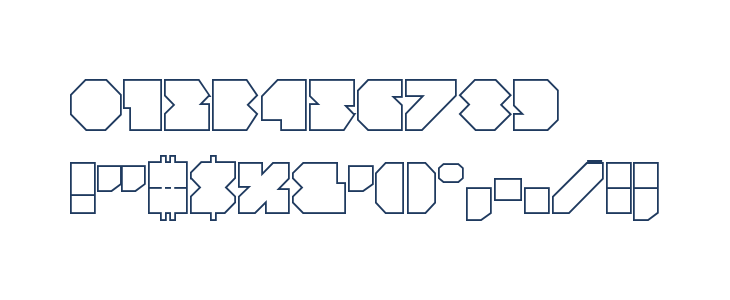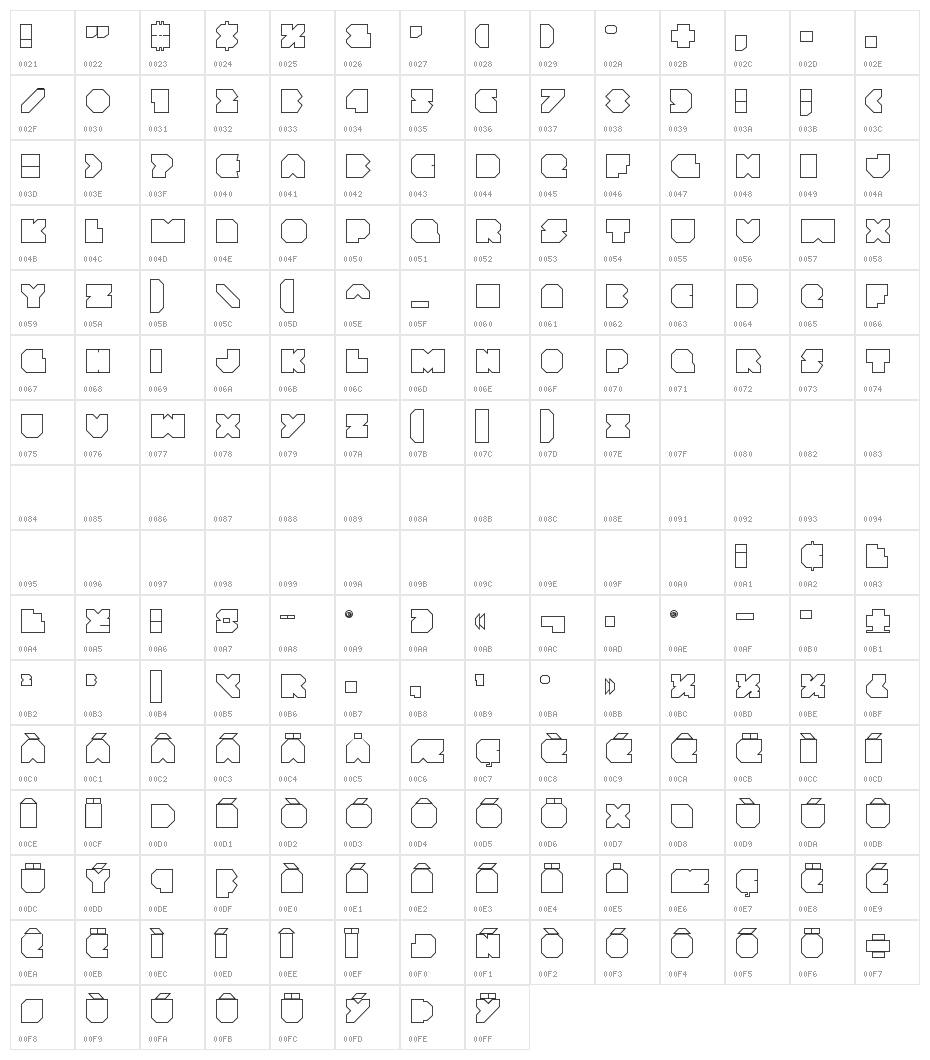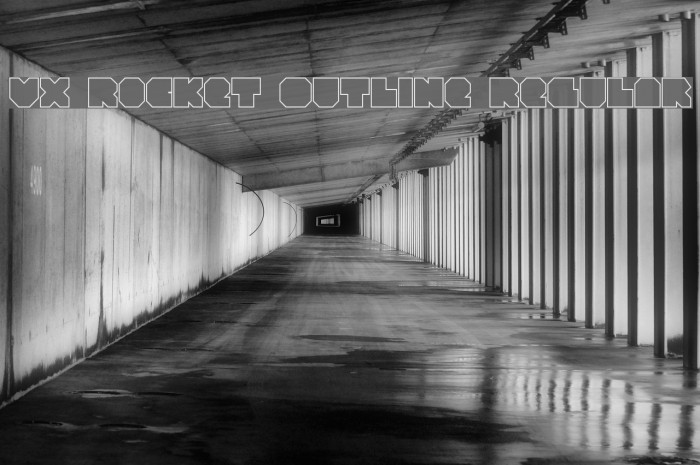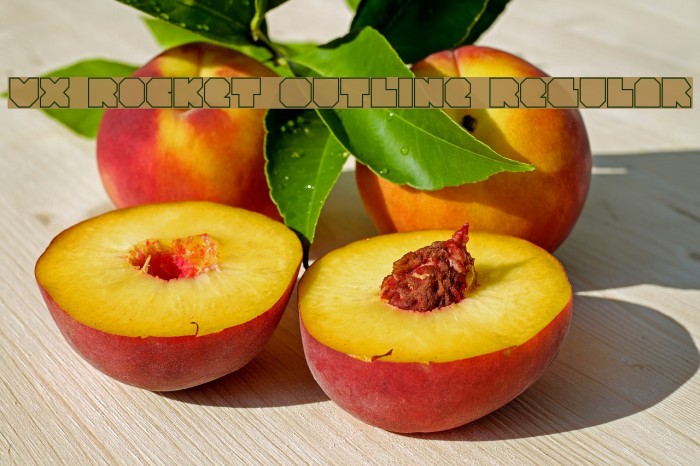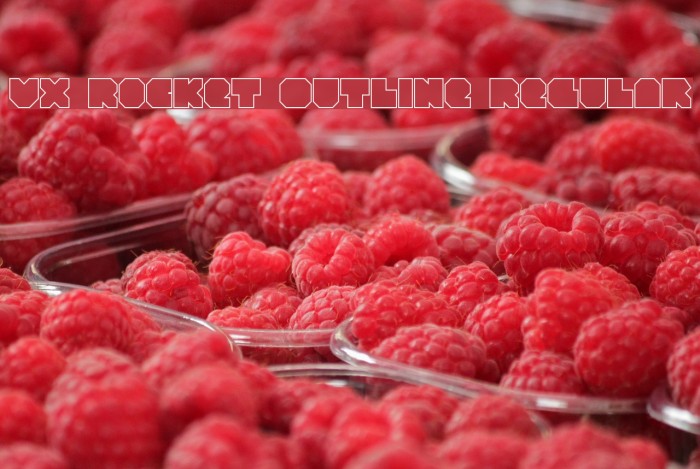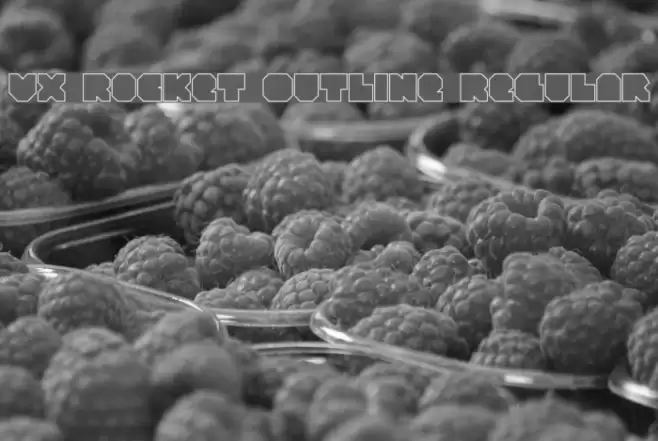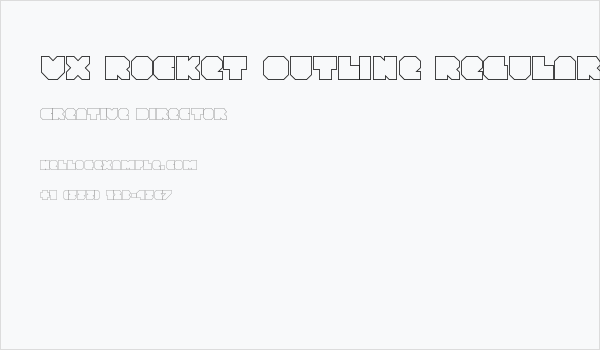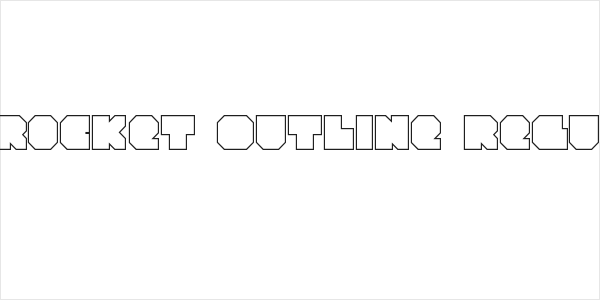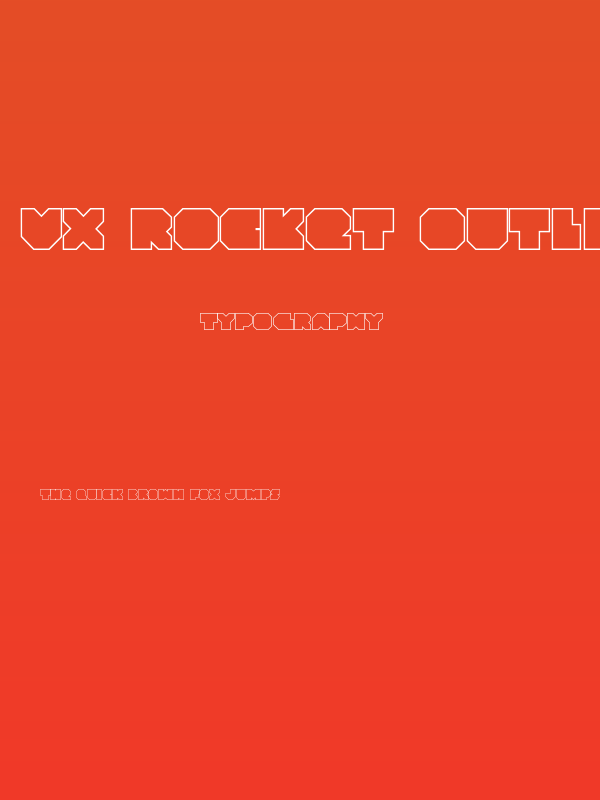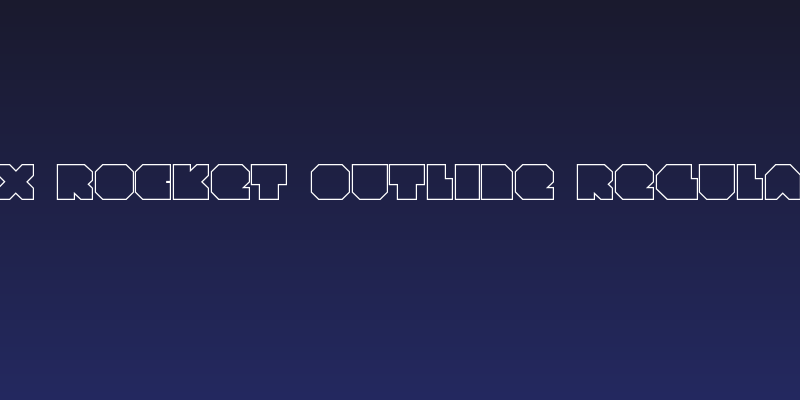
VX Rocket Outline Regular Font
VX Rocket Outline Regular Description
This font features a bold, geometric design with an outline style that gives it a futuristic and industrial appearance. The characters are constructed with straight lines and sharp angles, creating a blocky and robust look. The outline effect adds a sense of depth and dimension, making the letters stand out. This font is highly stylized, with a unique aesthetic that combines elements of modern design with a retro, sci-fi feel. The uppercase and lowercase letters maintain a consistent style, and the numbers and special characters are designed to match the overall theme. The font's distinct appearance makes it suitable for projects that require a strong visual impact.
Overall StyleFuturistic, Industrial
Proposed ProjectsIdeal for sci-fi themed designs, video game graphics, posters, and branding that requires a modern, edgy look.